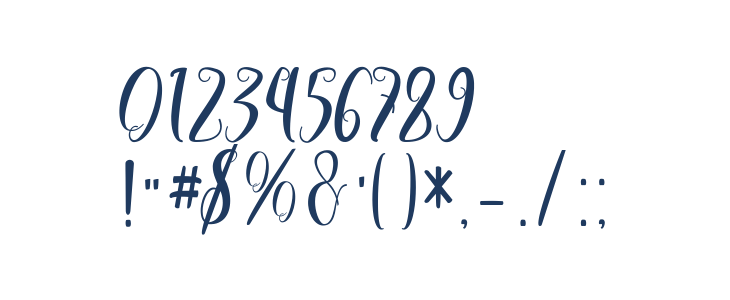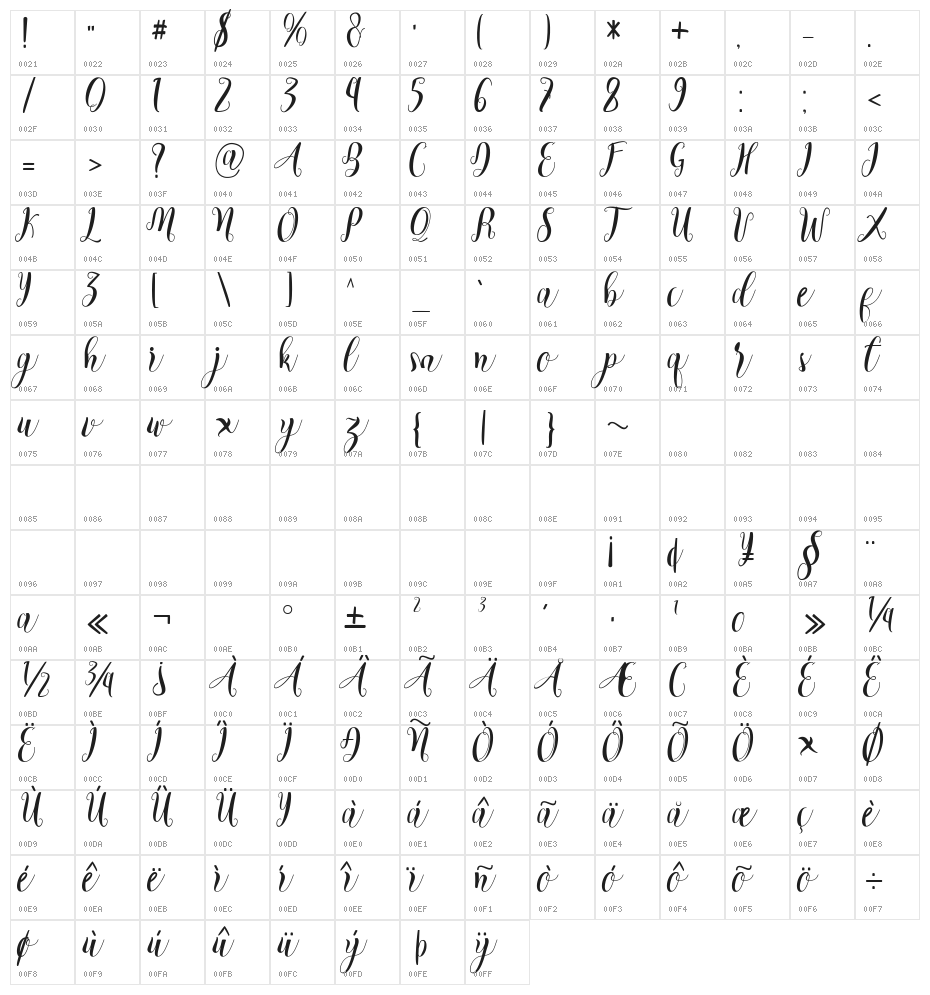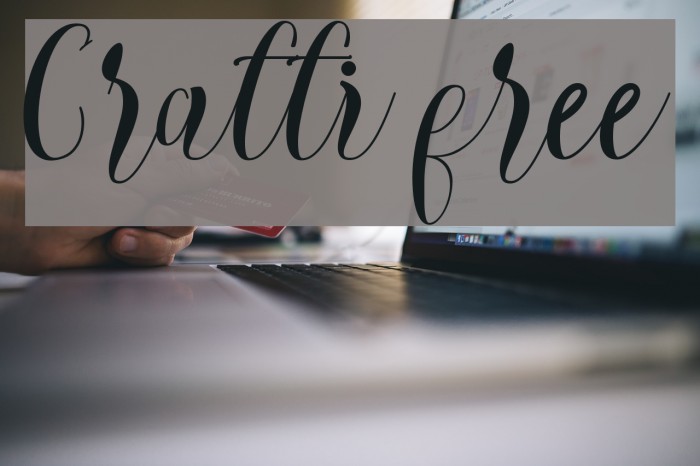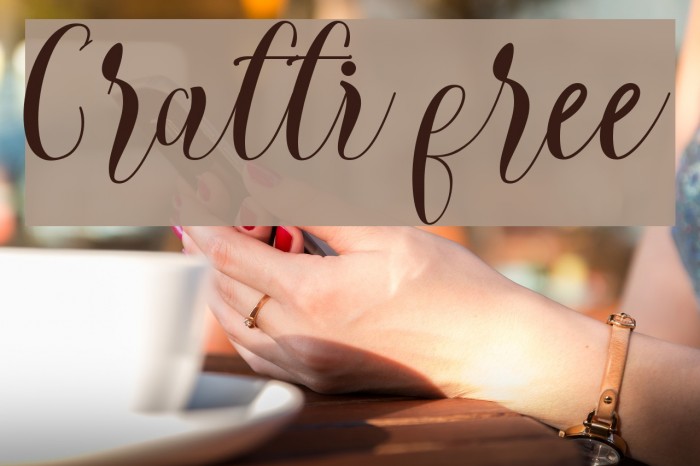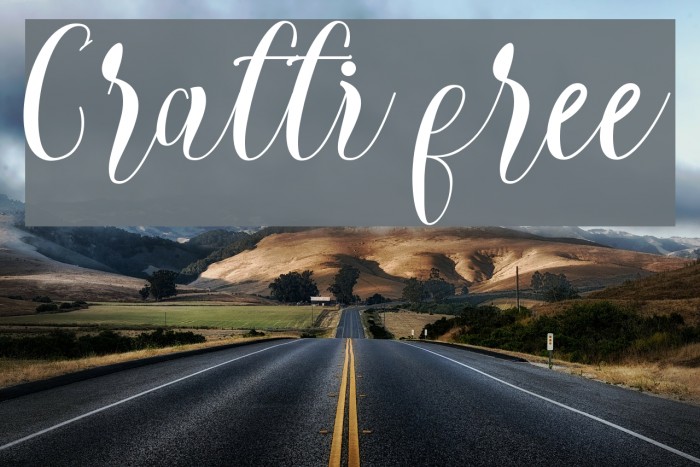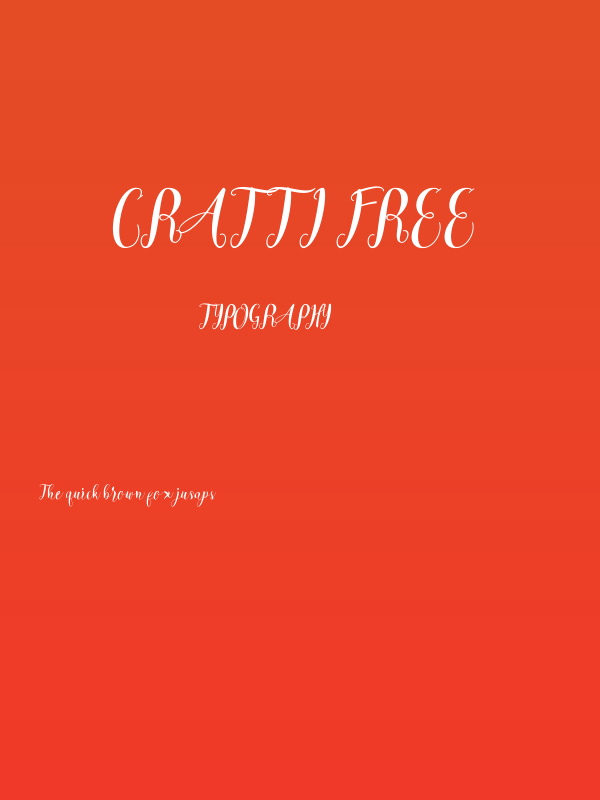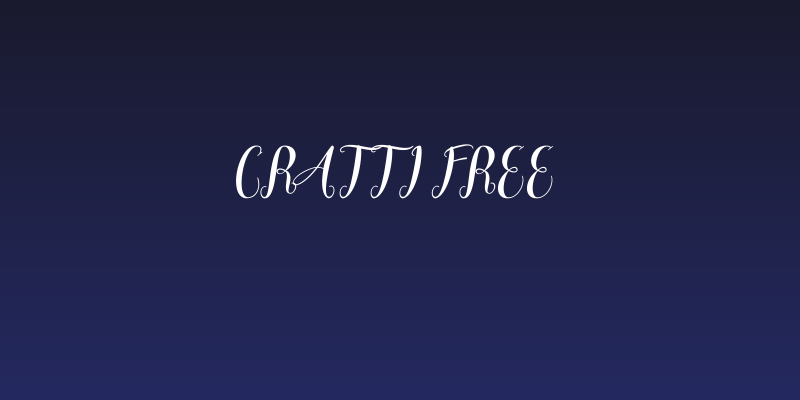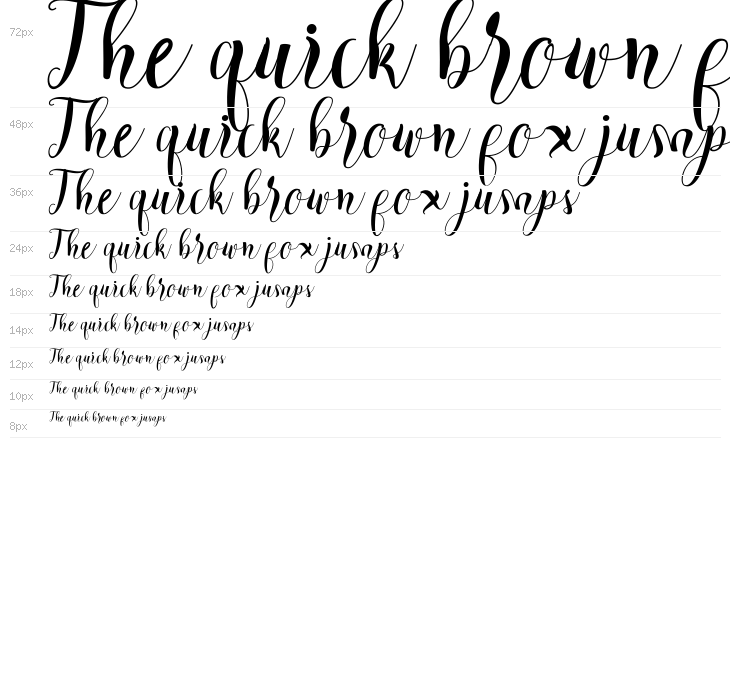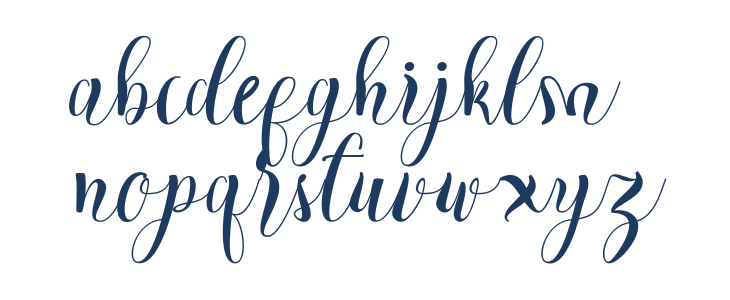
Cratti free Font
Cratti free Description
This font exudes elegance and sophistication with its flowing, cursive style. Each letter is adorned with delicate swirls and flourishes, creating a sense of movement and grace. The uppercase letters are particularly ornate, while the lowercase letters maintain a consistent, flowing script. Numbers and special characters are designed with the same attention to detail, ensuring a cohesive look across all characters. The overall appearance is both decorative and legible, making it suitable for a variety of creative applications.
| Use Case | Logos, Invitations, Decorative Text |
| Proposed Projects | Ideal for wedding invitations, elegant branding, greeting cards, and decorative signage. |